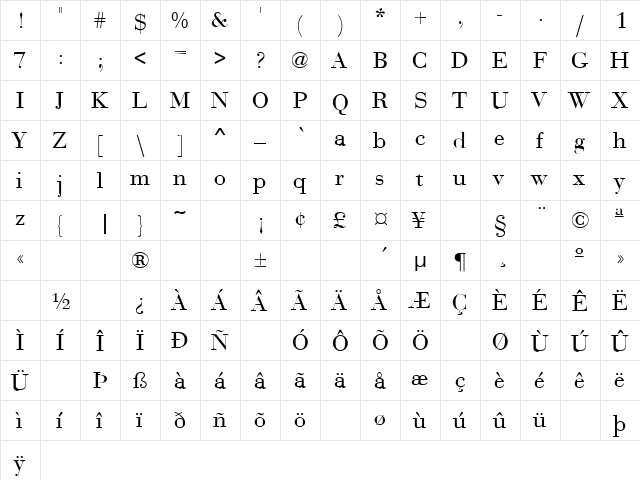
Any Color 13 Regular
Design Context for Any Color 13 Typeface
Any Color 13 takes a measured approach to typography — its balanced proportions and neutral character make it a reliable workhorse for both digital and print work.